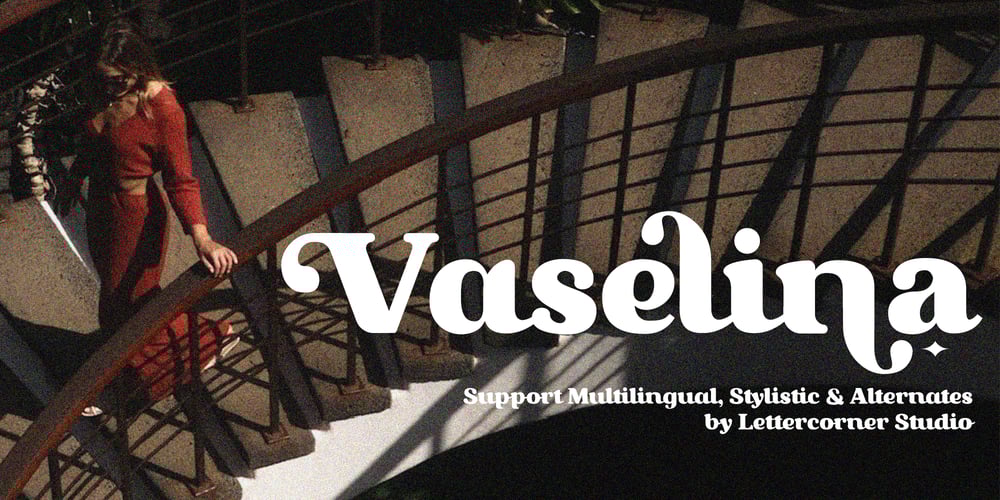
Vaselina Font Family was designed by Muhammad Afif Ersya and published by Mevstory Studio. Vaselina contains 2 styles and family package options. Vaselina – The chic & modern serif font. Vaselina is a modern and chic typeface, best used as a display for headings, logos, branding, magazines, product packaging and invitations. Vaselina comes with clean lines and smooth curves to give any project an extra touch of class.That’s it! Have fun using Vaselina Typeface!